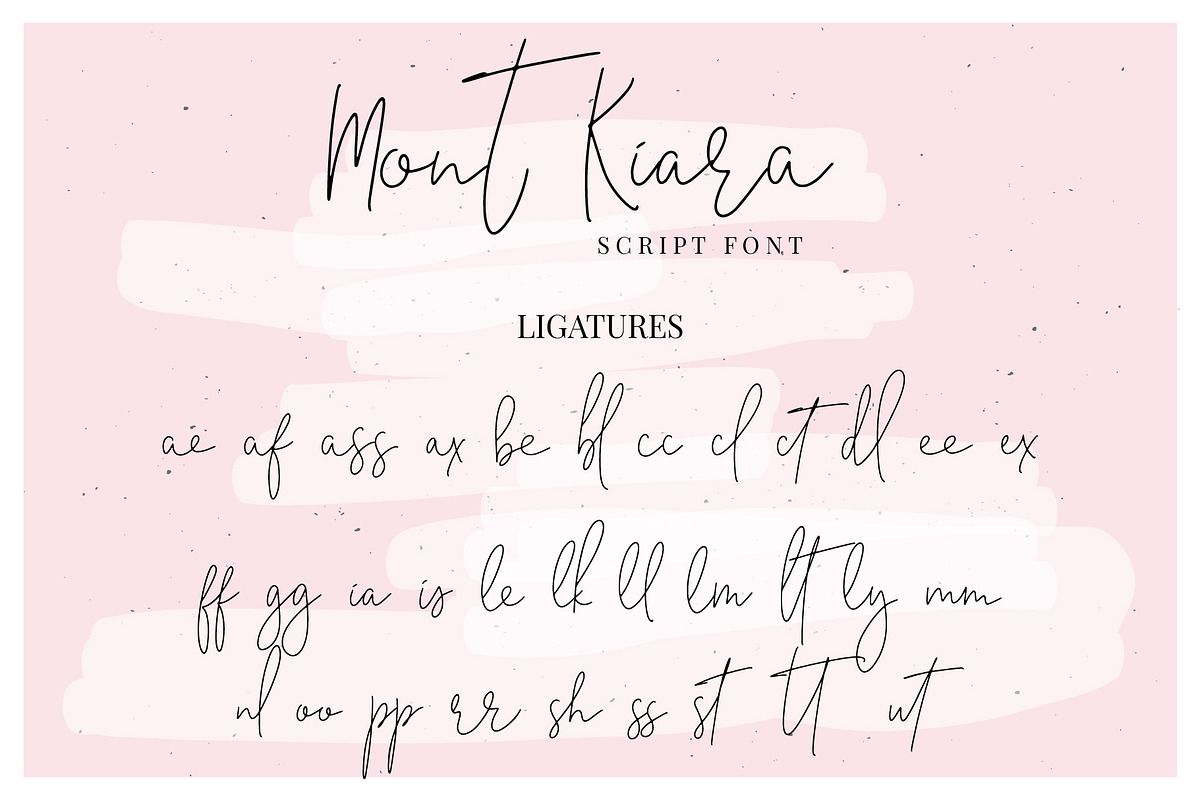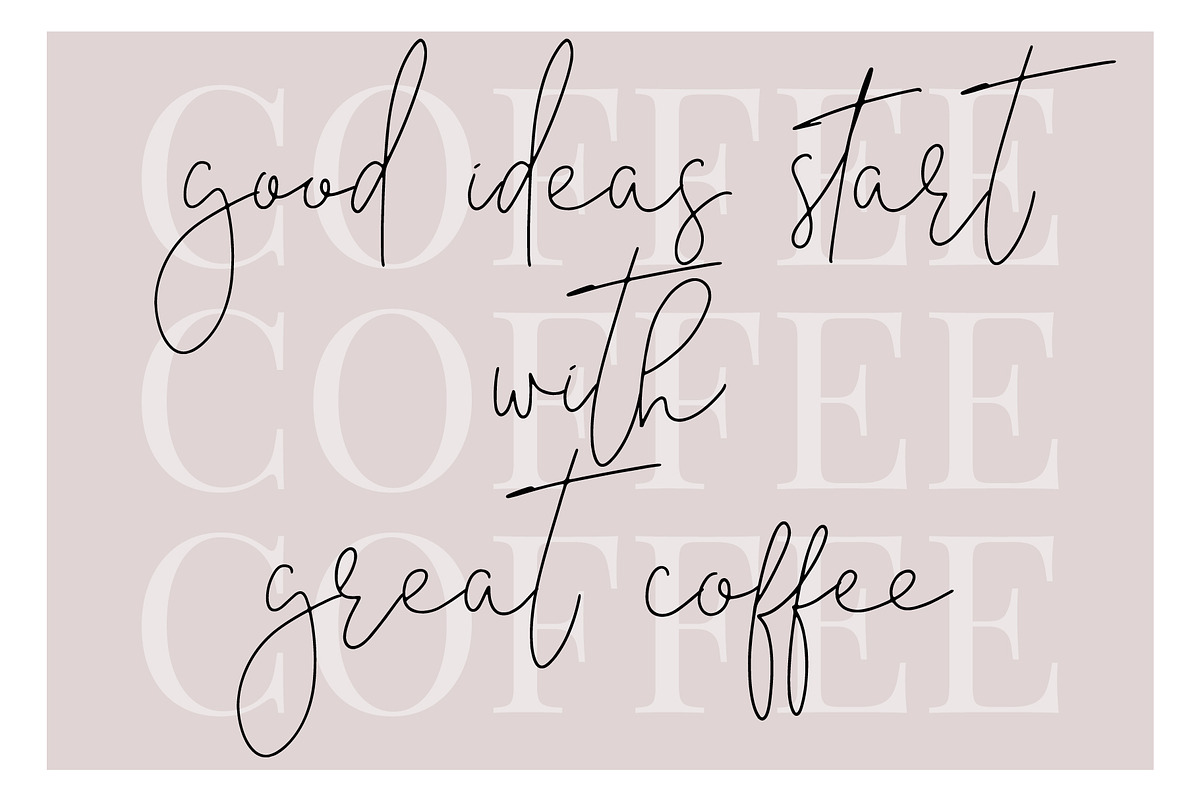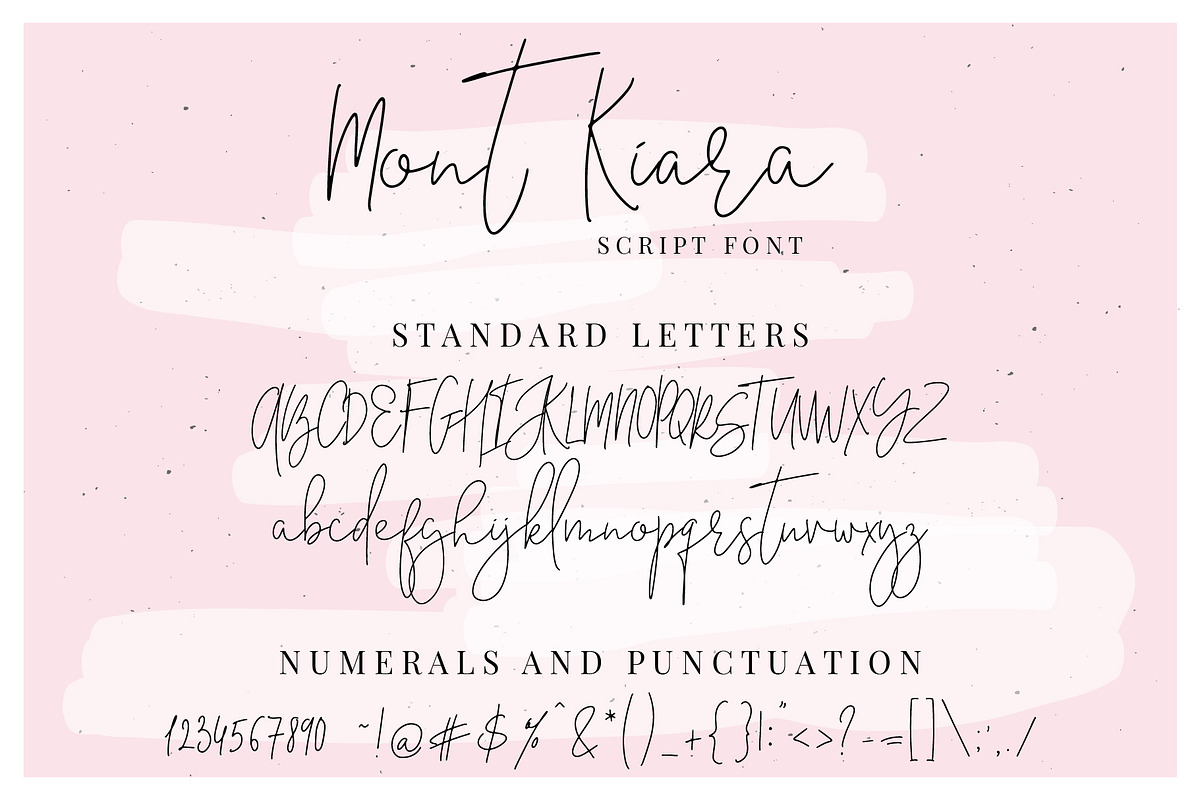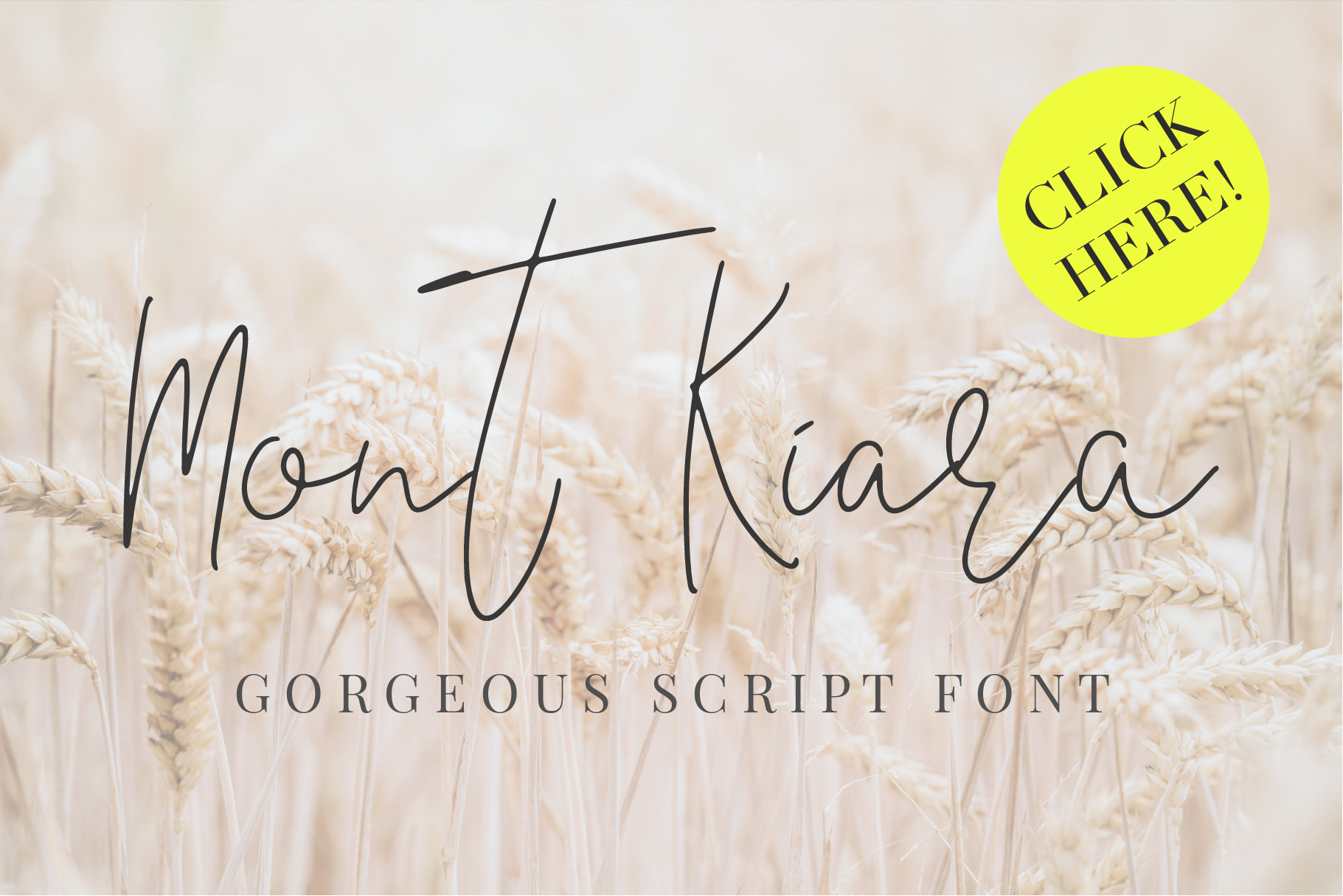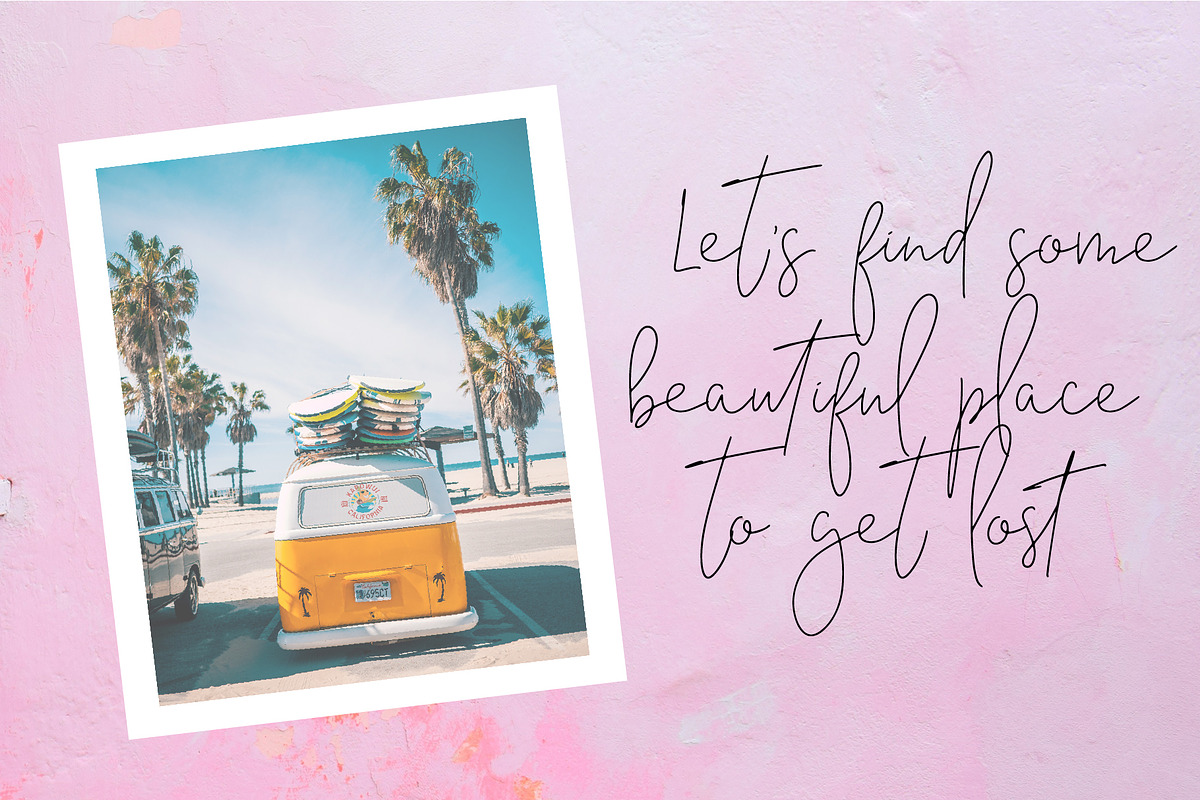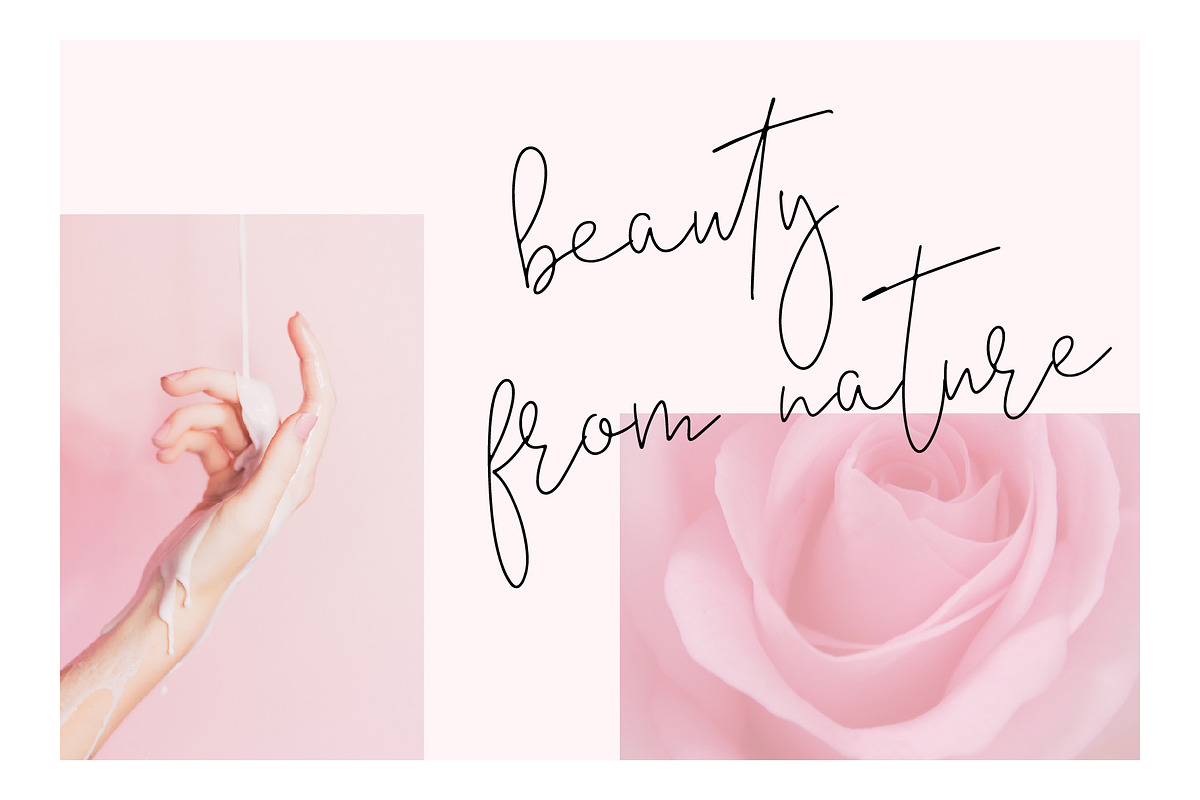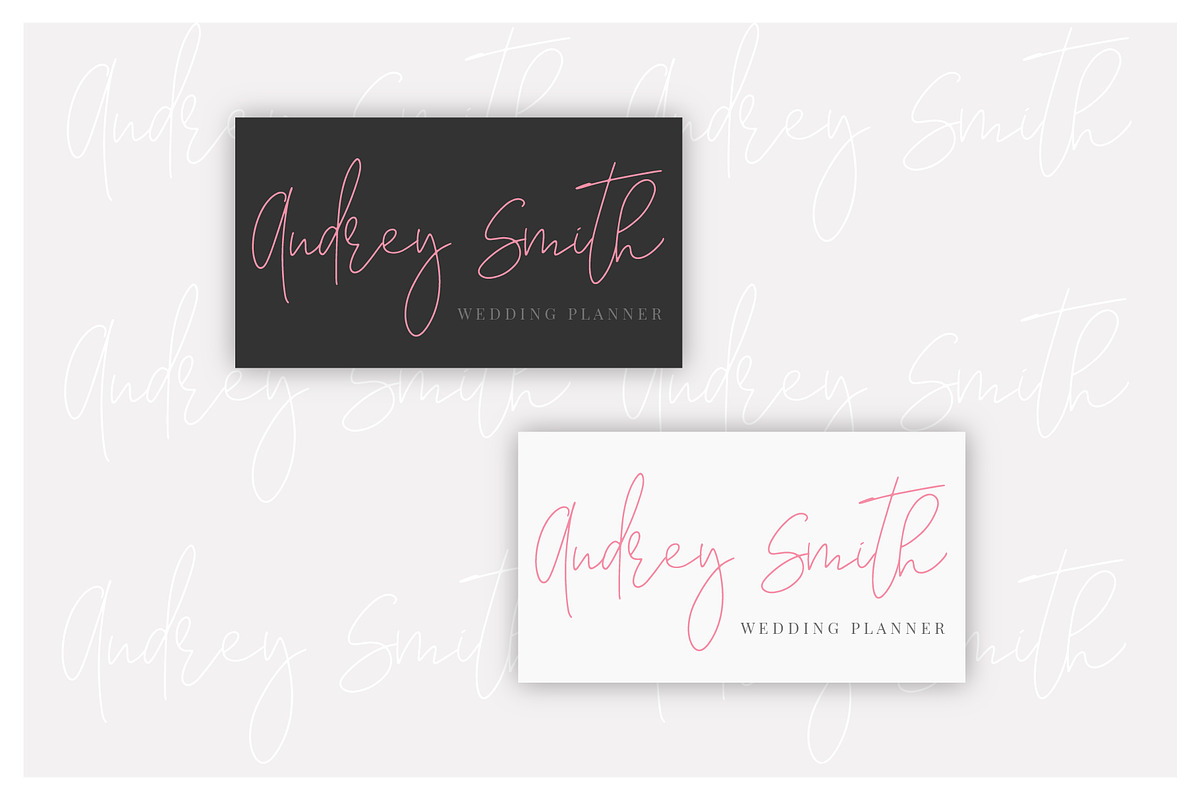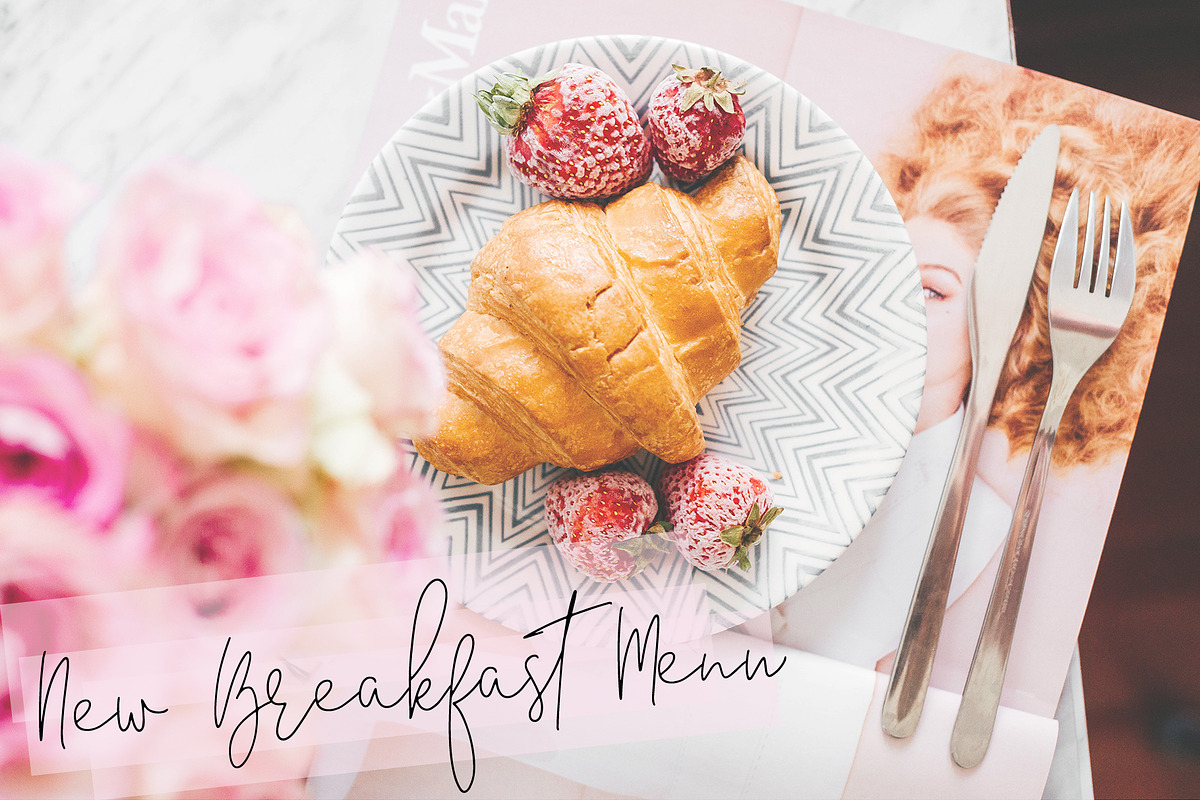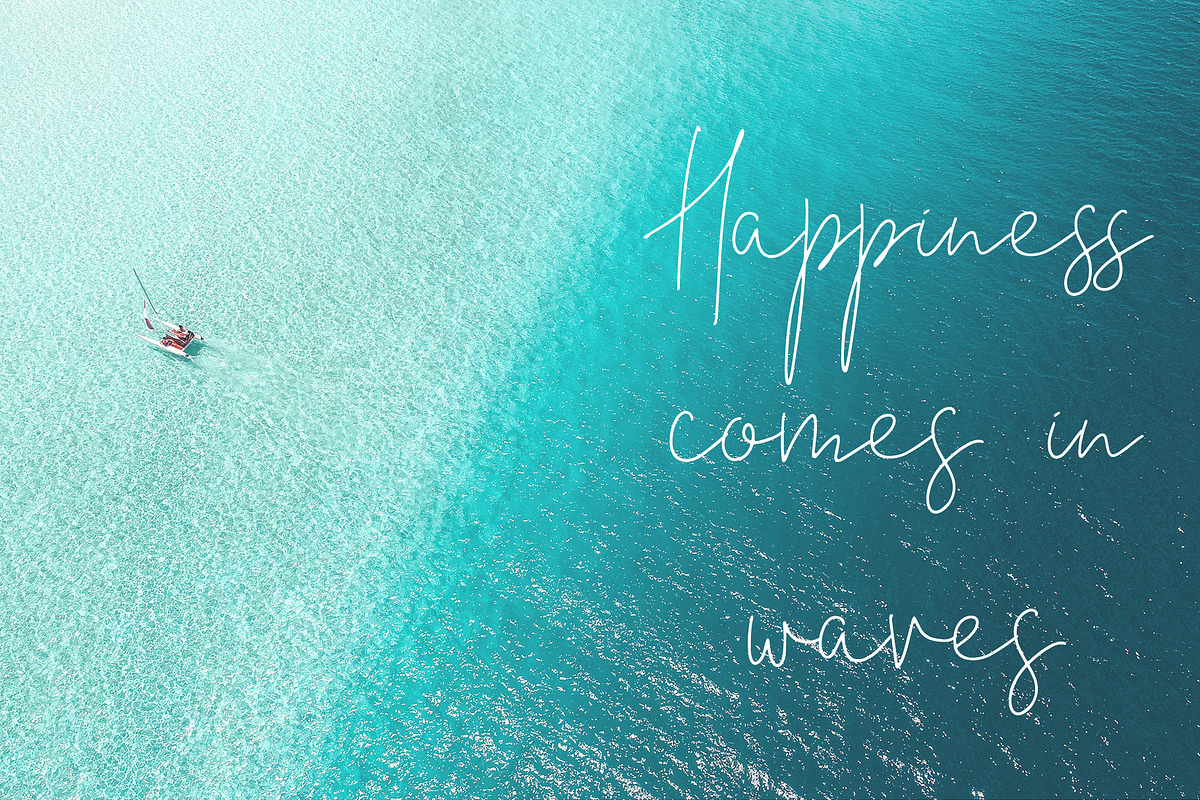
Mont Kiara Script Font
Introducing the new MONT KIARA SCRIPT FONT is a gorgeous font with trendy ligatures
Add a hand written touch to your magazine layouts, lettering, logo designs, quotes, packaging, social media, branding, wedding invitations and cards.
Although letters in this font connect beautifully there are 32 ligatures for you to play.
Mont Kiara font comes with built in OpenType Features, that means the ligatures are automatic. In case you want to use standard set of letters there is a version with no ligatures. No special software required to switch between ligatures and standard letters.